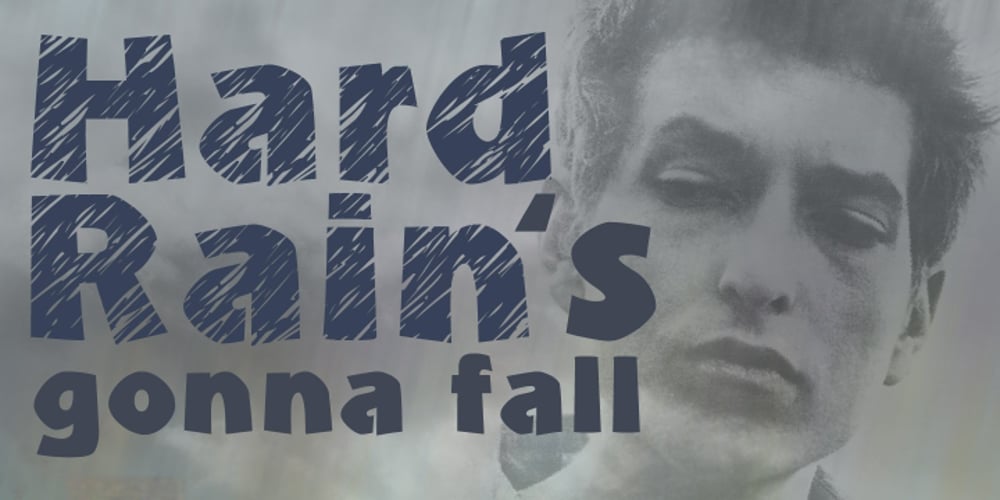
Hard Rain
Hard Rain font
Hard Rain Font Family was designed by Anton Scholtz and published by Scholtz Fonts. Hard Rain contains 1 styles and family package options. Hard Rain is named after the torrential thunderstorms that occur in the subtropical regions on the east coast of southern Africa — the land of the Zulu. During the two-month long rainy season the steamy downpour usually lasts for a few days, and is then followed by the welcoming sun. The diagonal stripes represent the heavy drops of water that drench everything they touch. The resulting font has something of a grunge look to it. As with other grunge fonts, Hard Rain is best used for posters and display work. However, the crisp edges mean that it can be very readable even if used at a small size. Unlike most grunge fonts, Hard Rain has a full character set and this greatly extends its usability.